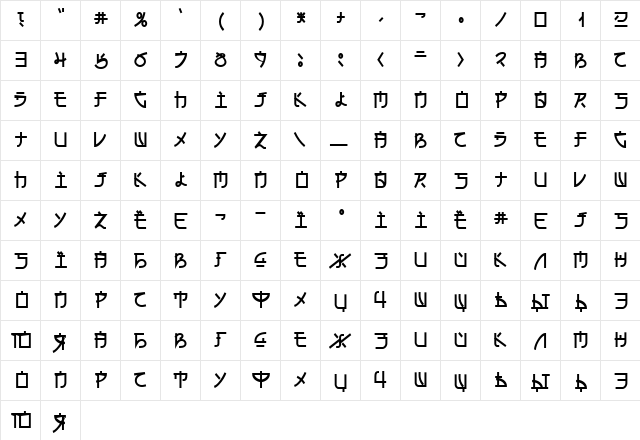
Eh_cyr Regular
| Designer | Ray Larabie - eng. and Nikolay Dubina - cyr. (freeware) |
Eh_cyr is a composed and adaptable typeface that performs quietly and consistently across a wide range of design contexts.